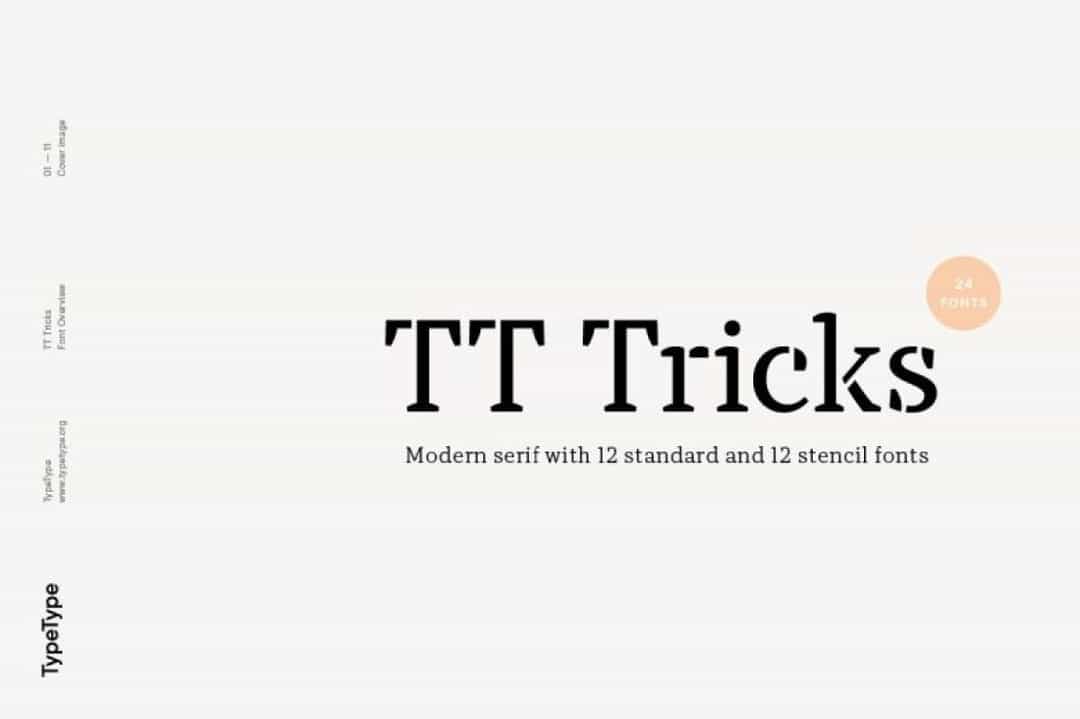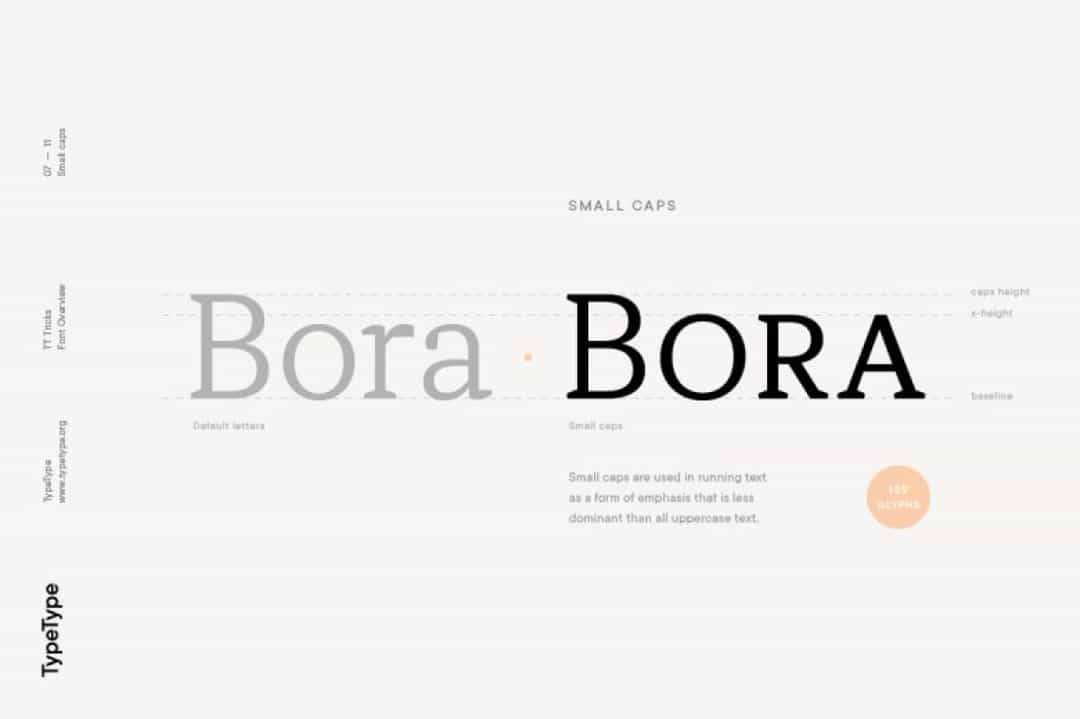
TT Tricks is a contemporary serif font family reminiscent of earlier serif styles from this transition period. The font’s most distinguishing traits include low sharpness of strokes and square forms in round characters as well as its strong emphasis on businesslike aspects.